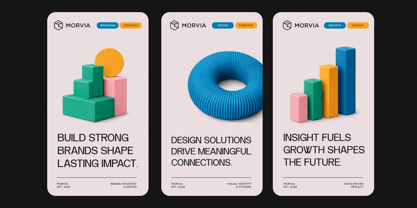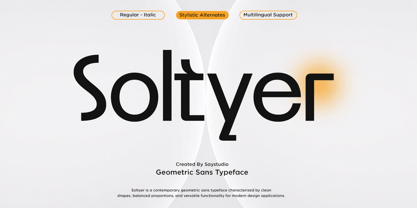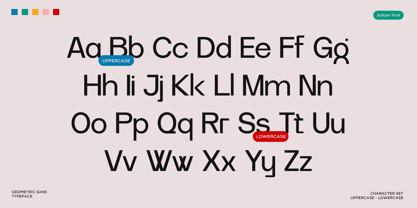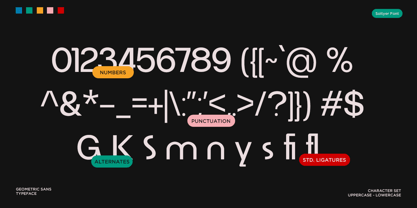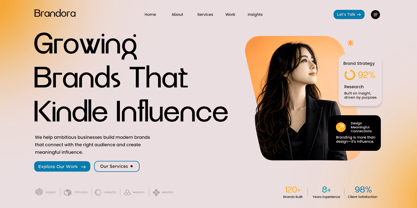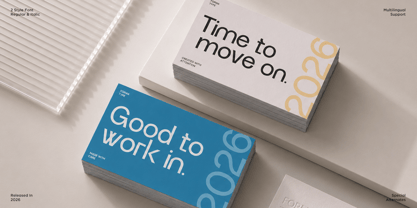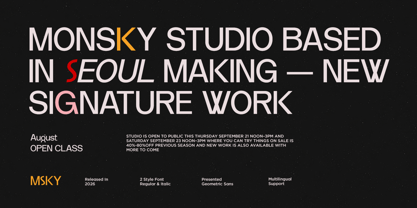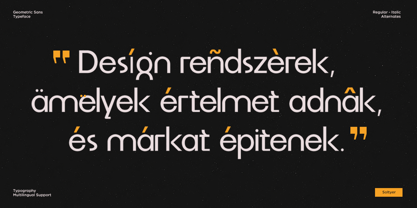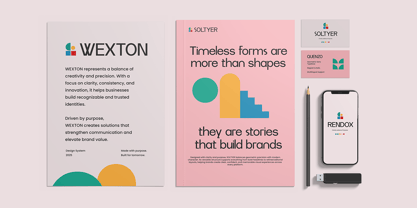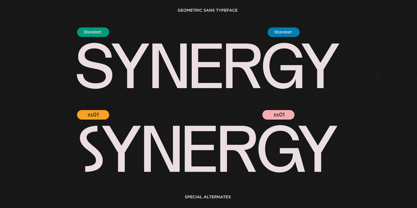
Soltyer
von Say Studio
Die Schriftfamilie Soltyer wurde von Mussyayin entworfen und von Say Studio veröffentlicht. Soltyer enthält 2 Stile und Familienpaketoptionen. Mehr über diese Familie
Soltyer is a modern geometric sans typeface crafted to bring clarity, precision, and contemporary elegance to every design. Built with balanced proportions, clean curves, and confident letterforms, it delivers a refined visual identity that performs beautifully across both digital and print media. Whether you're designing for brands, technology, fashion, or editorial projects, Soltyer offers a professional aesthetic that feels timeless and versatile.
Soltyer gives designers the flexibility to create distinctive typography without sacrificing readability. Its geometric construction creates a sophisticated rhythm, while the alternate characters introduce subtle personality for premium logos, headlines, packaging, and visual identities.
Perfect for branding, logo design, editorial layouts, websites, UI/UX, advertising, presentations, packaging, social media, startups, architecture, technology, and luxury branding, Soltyer adapts effortlessly to a wide variety of creative projects. This versatile typeface is an essential addition to every modern designer's font library.
• Regular and Italic
• Stylistic Alternates
• Uppercase and Lowercase
• Number, Symbol, and Punctuation
• Multi Language Support
Designer: Mussyayin
Foundry: Say Studio